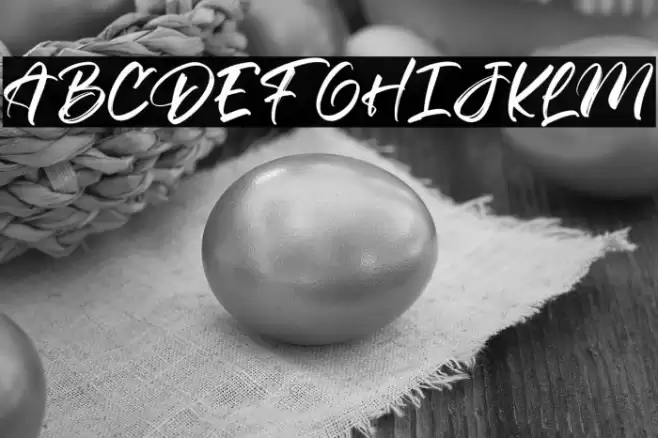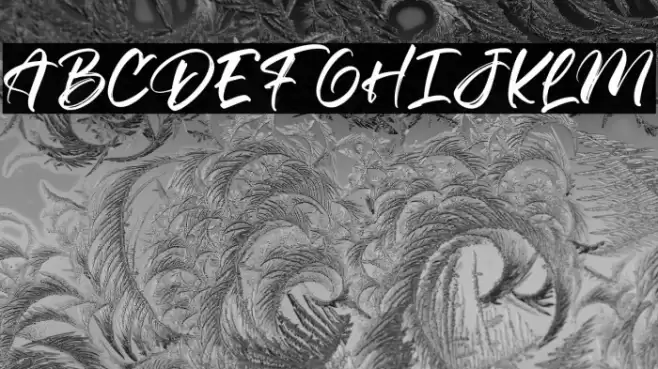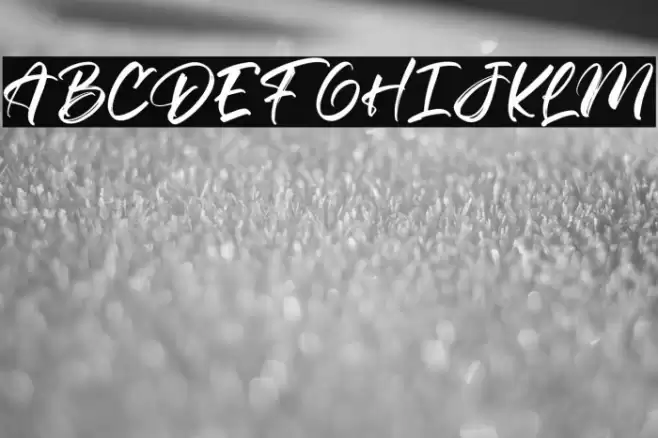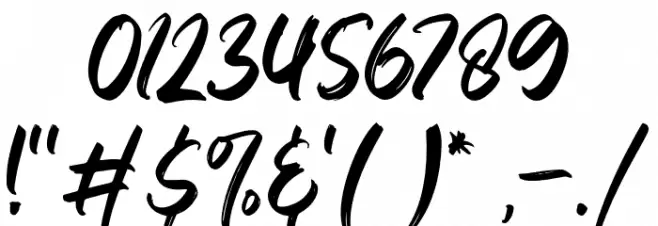
CellineFram Font
CellineFram Description
This font exhibits a dynamic and expressive handwritten style, characterized by its fluid and flowing strokes. The uppercase letters are bold and slightly slanted, giving a sense of movement and energy. The lowercase letters maintain a consistent style, with smooth curves and a casual elegance. The numerals are equally expressive, with a playful yet sophisticated appearance. Special characters are integrated seamlessly, maintaining the overall aesthetic. This font is ideal for projects that require a personal touch, such as invitations, branding, and creative designs.
A dynamic and expressive handwritten font with fluid strokes from Uncategorized fonts.
- Font: CellineFram
CellineFram UPPERCASE
CellineFram LOWERCASE
CellineFram OTHER CHARS